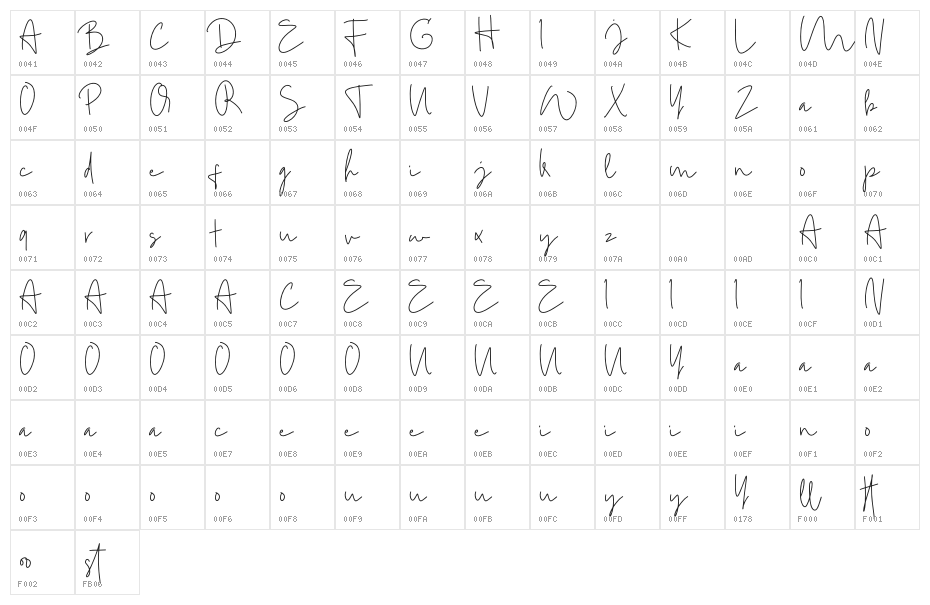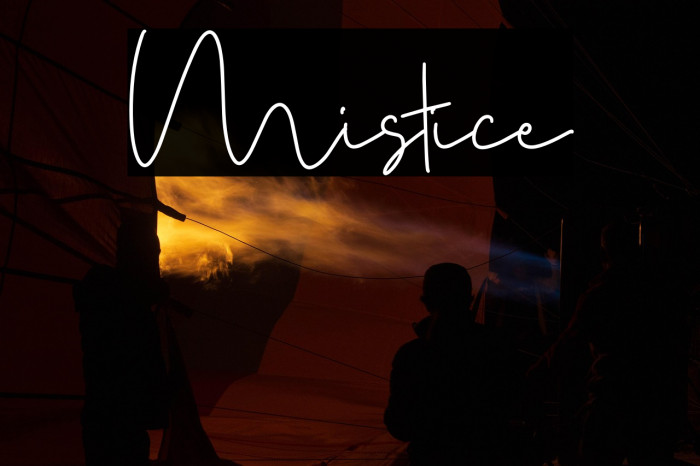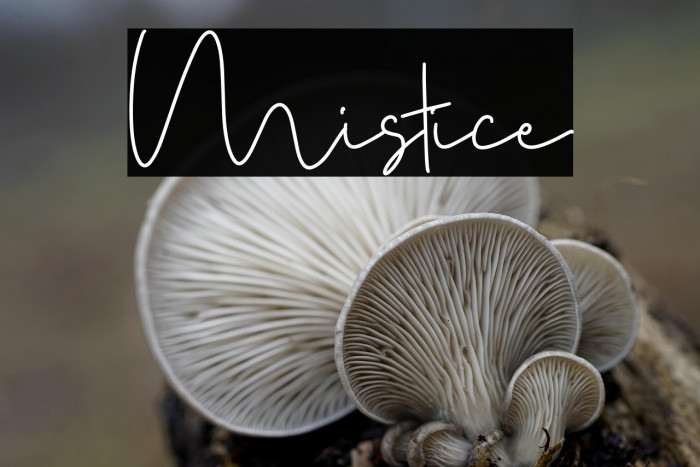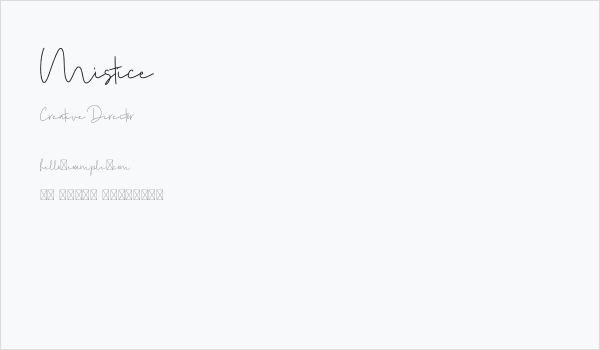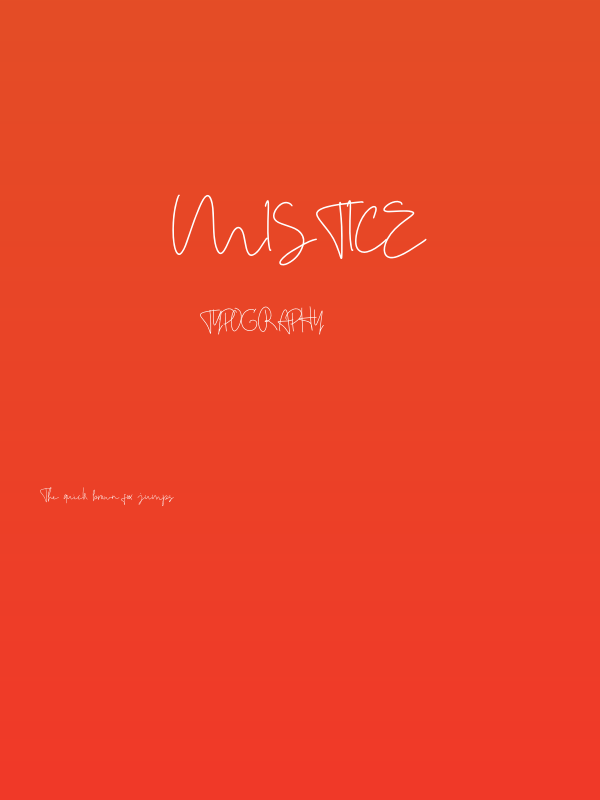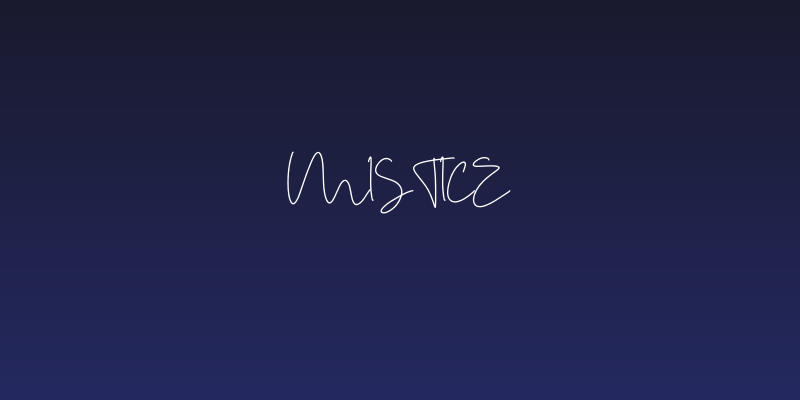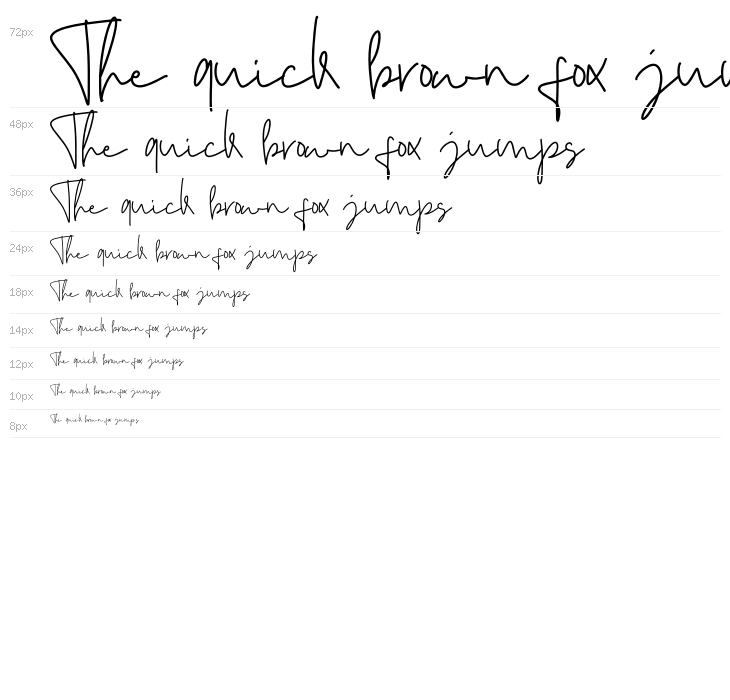
Mistice Font
Mistice Description
This font features a casual, handwritten style with a playful and organic feel. The letters are fluid and connected, giving it a natural, flowing appearance. The strokes vary in thickness, adding a dynamic and lively character to the text. The uppercase letters are bold and expressive, while the lowercase letters maintain a consistent, smooth flow. This font exudes a sense of creativity and spontaneity, making it ideal for projects that require a personal touch. The overall design is both modern and approachable, suitable for a variety of applications.
| Use Case | Logos, Headlines, Invitations |
| Proposed Projects | Greeting cards, personal branding, creative invitations, social media graphics. |